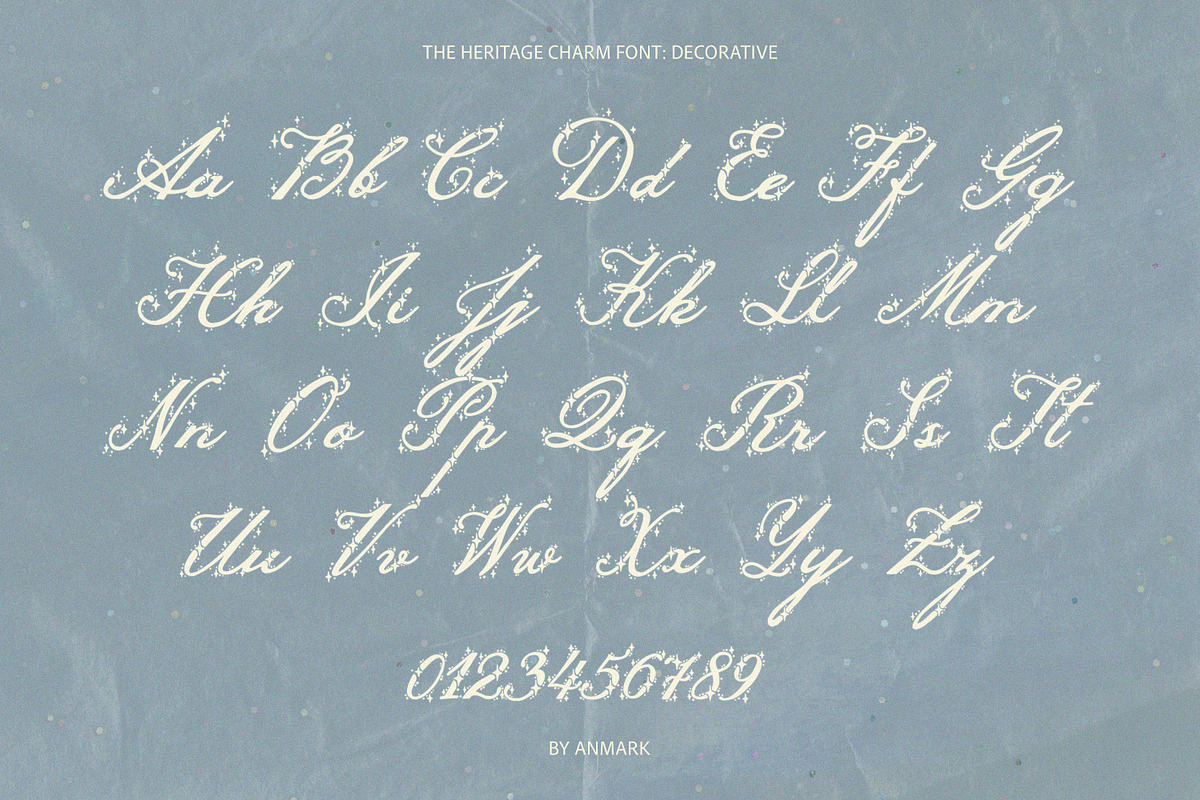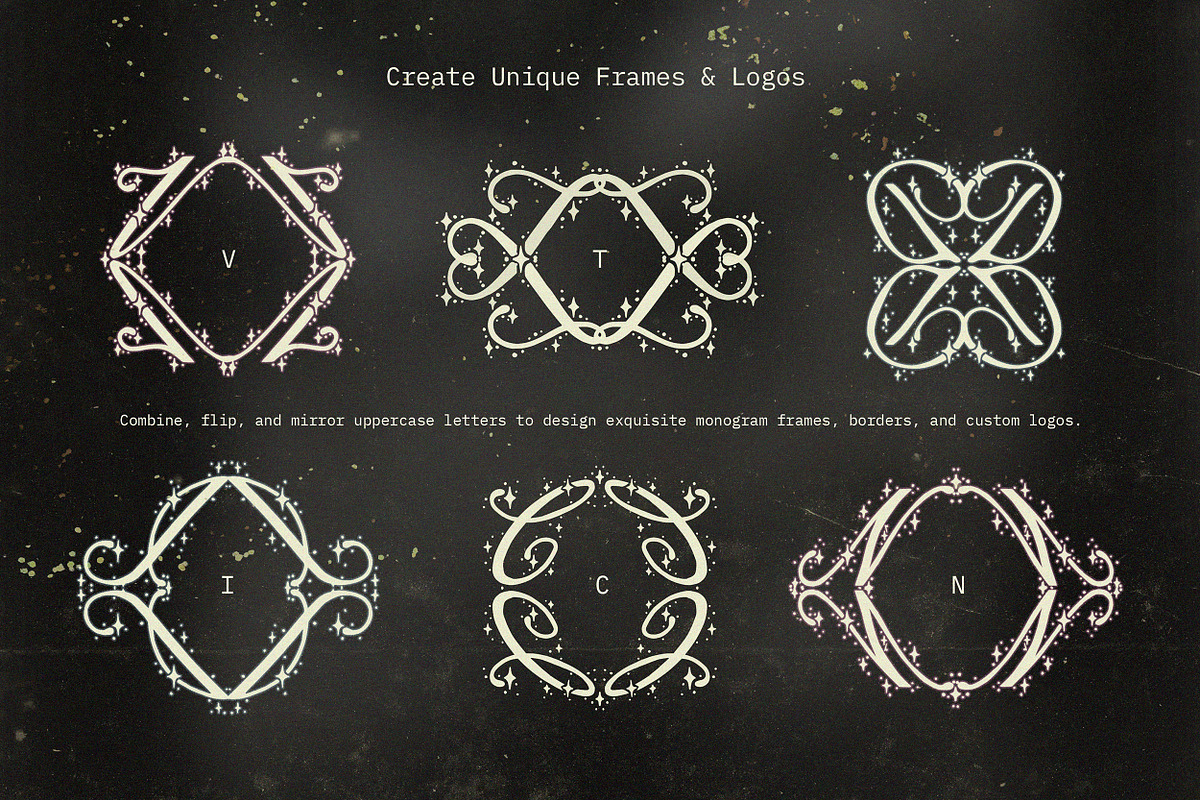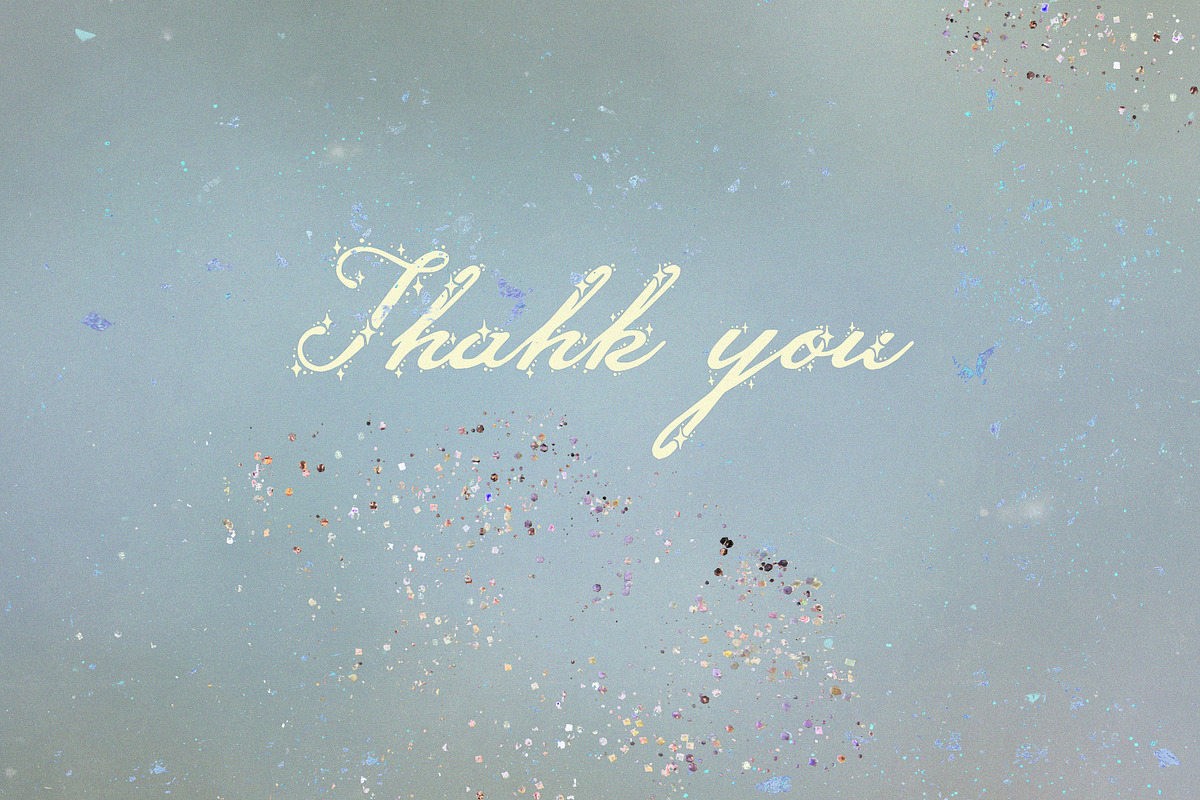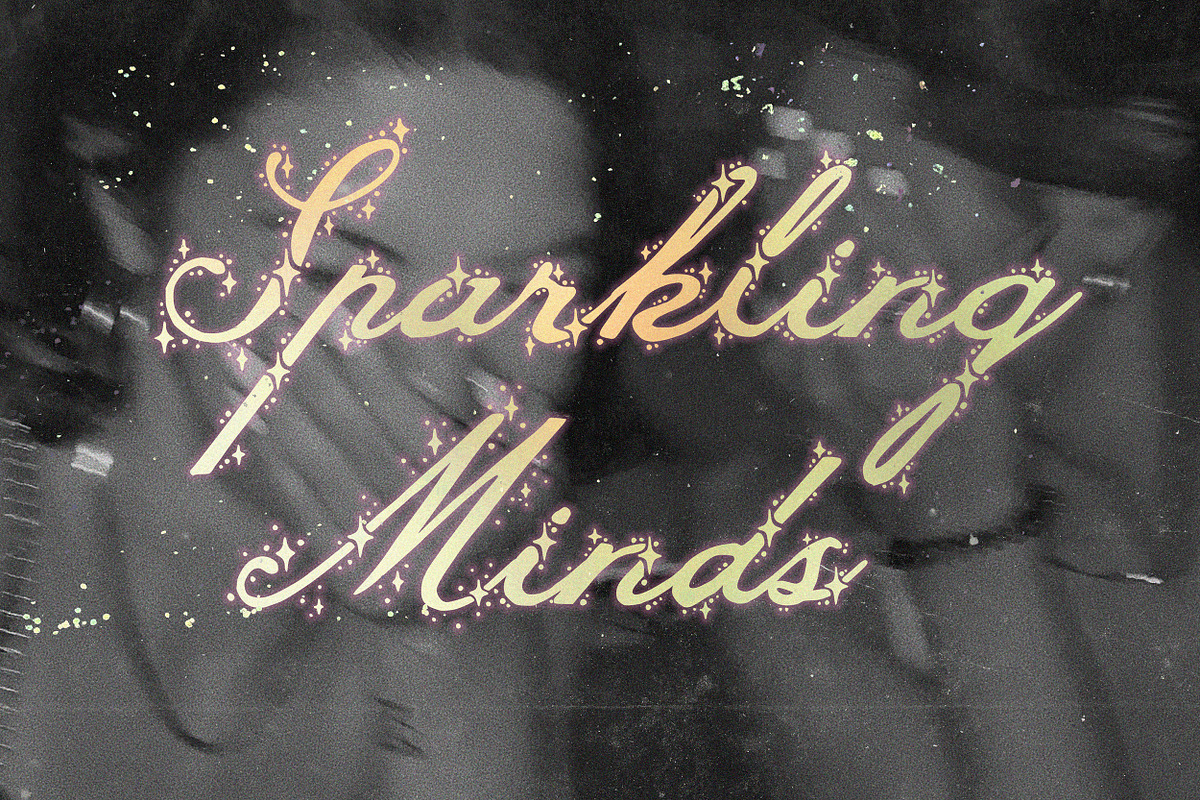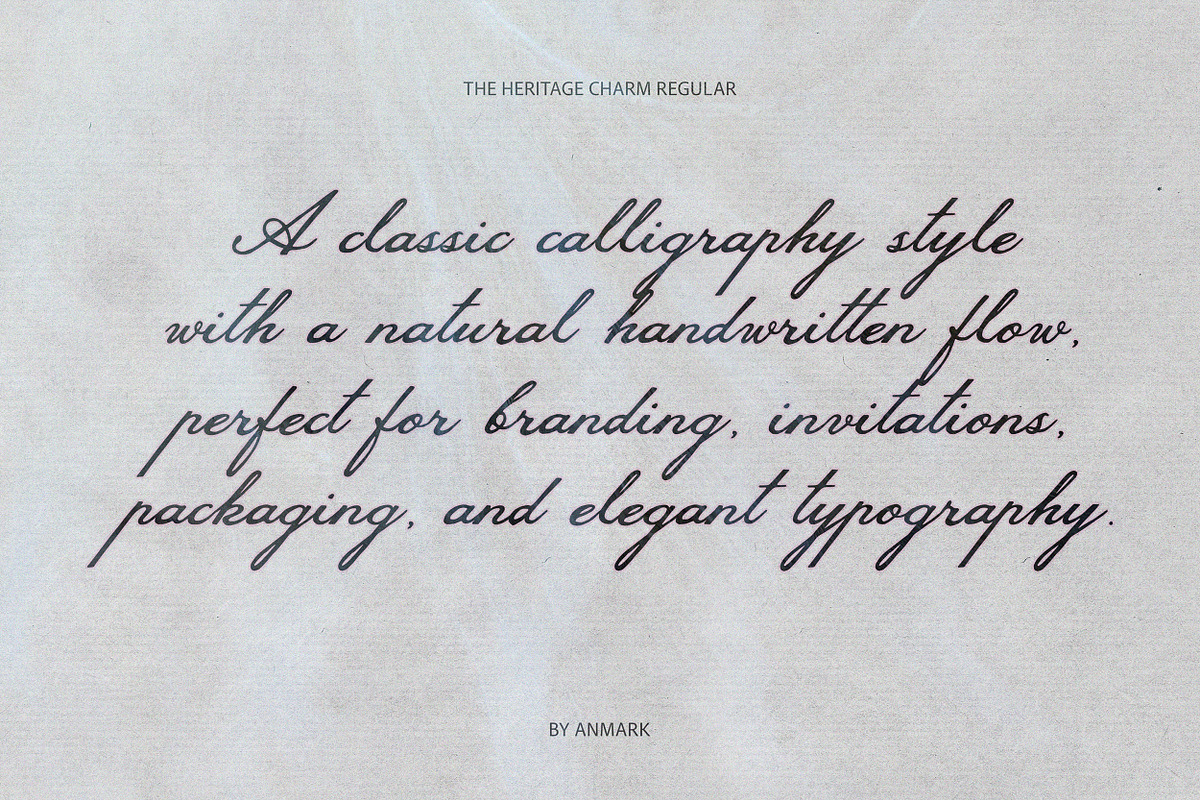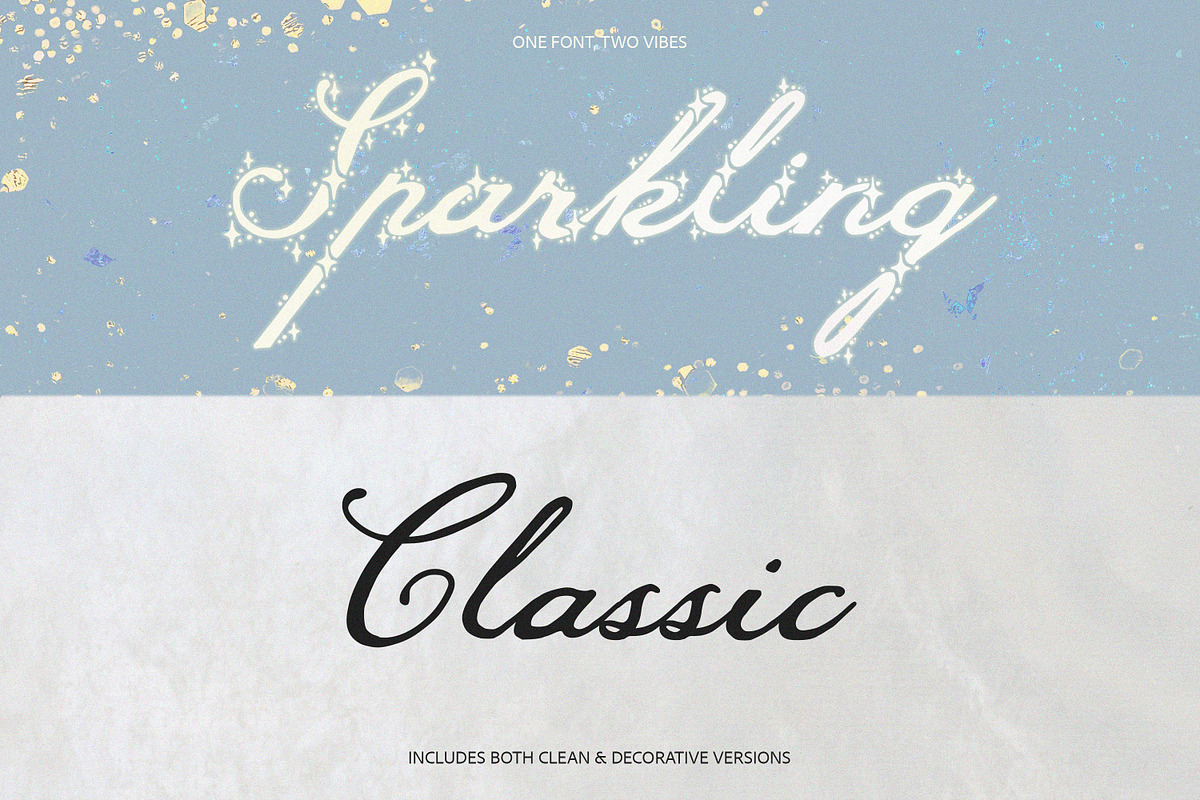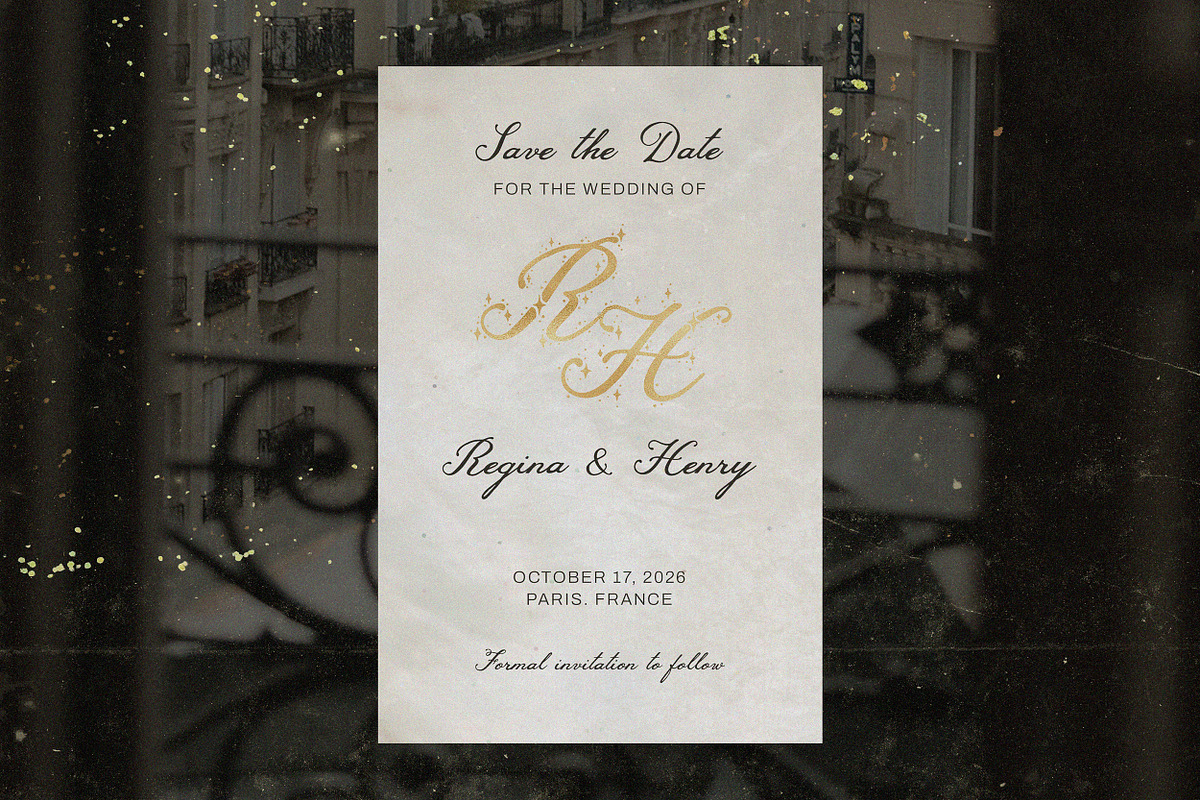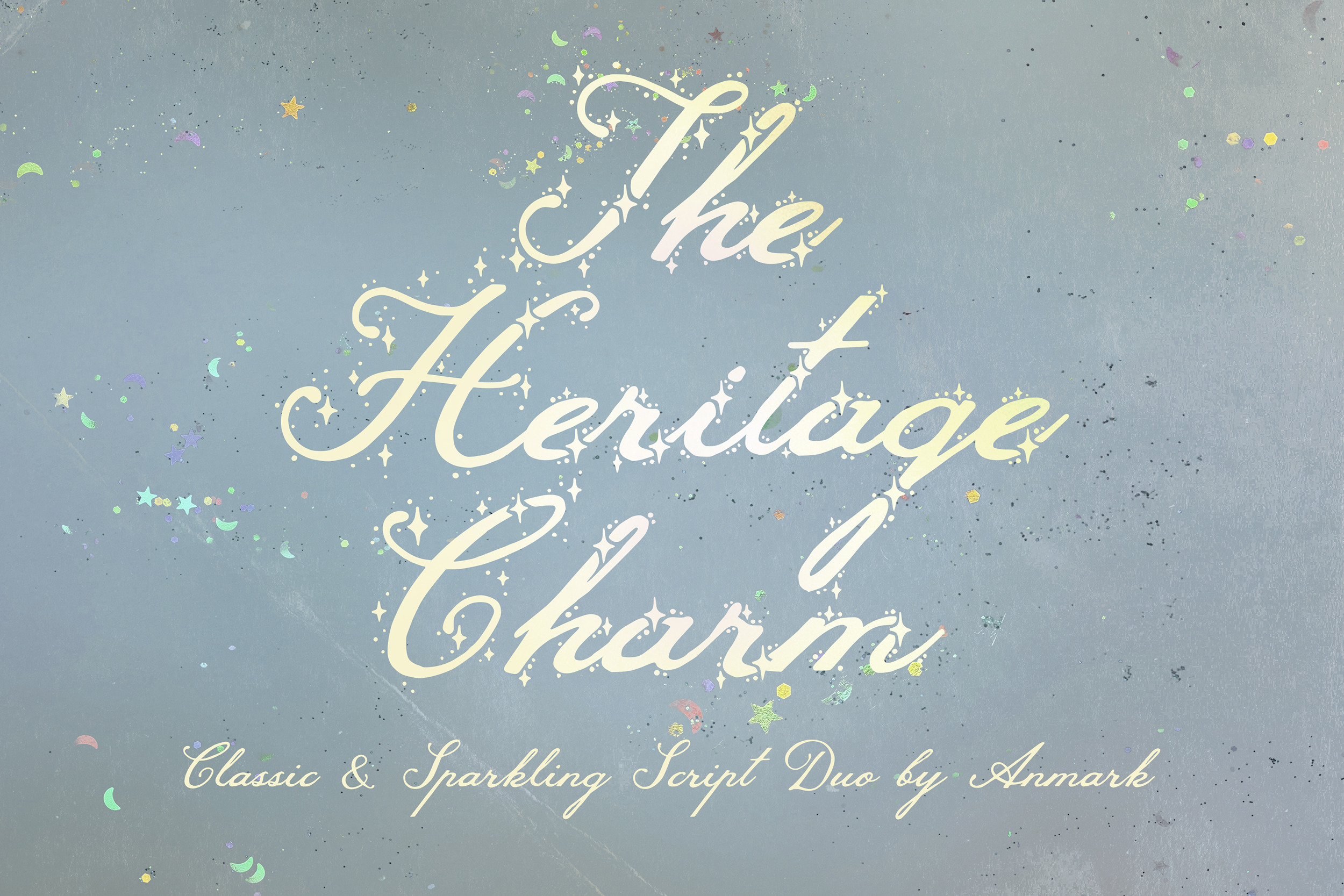
The Heritage Charm Decorative Font
Introducing The Heritage Charm, a decorative script font duo inspired by timeless calligraphy, treasured keepsakes, and elegant handwritten lettering.
The font includes two distinct styles that can be used separately or combined within the same design.
The Regular style features graceful calligraphy with a natural handwritten flow and slightly relaxed character. It feels refined yet approachable, making it a beautiful choice for logos, luxury branding, wedding stationery, packaging, editorial layouts, greeting cards, and signature style typography.
The Decorative style transforms the lettering with delicate stars and sparkling details woven into the letterforms. This enchanting variation adds extra personality and visual interest while preserving the elegance of the original script. It works beautifully for invitations, beauty branding, feminine packaging, book covers, social media graphics, decorative quotes, and creative projects that deserve a memorable finishing touch.
The Heritage Charm is perfect for wedding invitations, branding, logos, fashion projects, beauty products, stationery, packaging design, greeting cards, editorial work, book covers, and elegant typography.